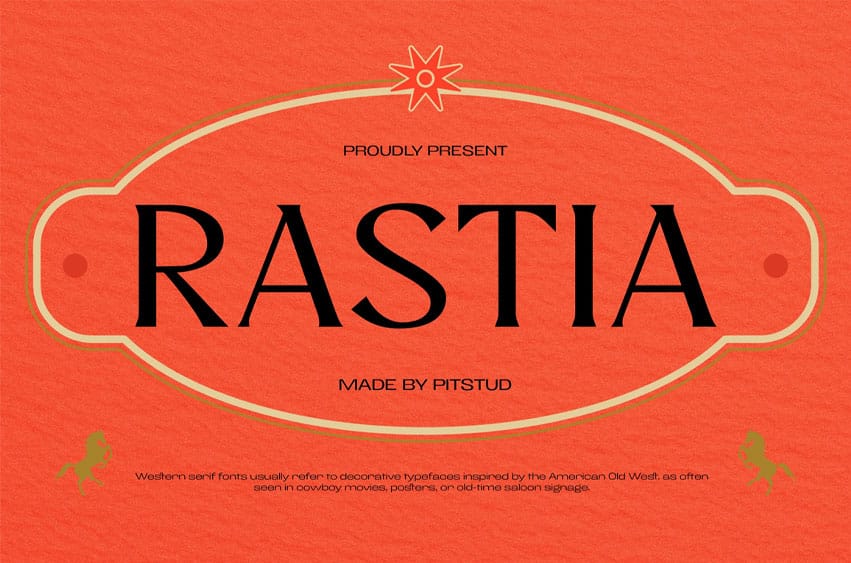
Rastia Font is a premium western bold serif display font designed to bring vintage strength to your branding and design projects. Crafted with modern western-style serifs, this font offers a sleek, stylish, and professional touch for logos, marketing materials, packaging, and digital applications.
Perfect For Whether you’re working on a western-themed brand, vintage poster, or retro magazine cover, RASTIA will give your design a bold and impactful edge. It’s ideal for use in signage, product packaging, editorial layouts, and festival promotions.
- Clear and Versatile Design: Offers easy readability with a modern style that stands out in both digital and print mediums.
RASTIA combines thick slab serifs and sharp vintage details to create a striking visual impact while maintaining clarity. Whether you are designing for rodeo events, music festivals, or western-themed branding, this font adapts to your needs and enhances the visual appeal of your design.
- Western Branding: Capture the rugged charm of cowboy-inspired aesthetics.
- Vintage Posters: Add a bold retro feel to print and digital posters.
- Editorial Headlines: Make an impression with striking serif titles.
- Product Packaging: Ideal for brewery labels, apparel, or artisan goods.
- Signage & Logos: Deliver a powerful visual identity for standout branding.